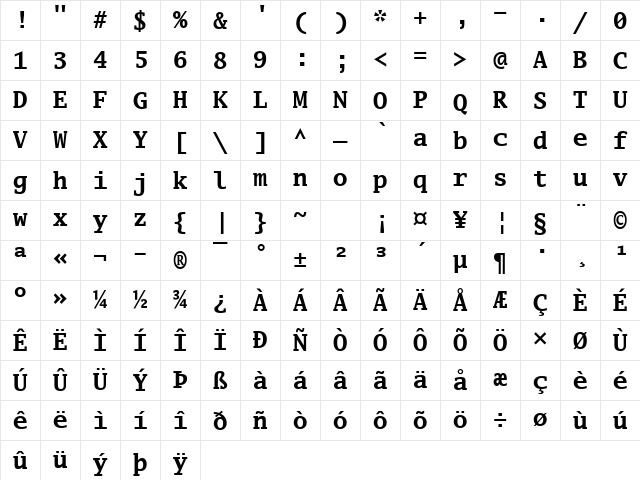
Complete GoMono NF Bold glyph index. Displaying only characters natively supported by GoMono NF Bold font.
GoMono NF uses fixed-width spacing throughout, giving it the structured, systematic character associated with coding environments and technical documentation. Its bold stroke weight gives it real presence on the page.
Pro Tip: Use GoMono NF with slightly increased line-height for extended reading - fixed-width spacing can feel dense in longer passages without extra breathing room.